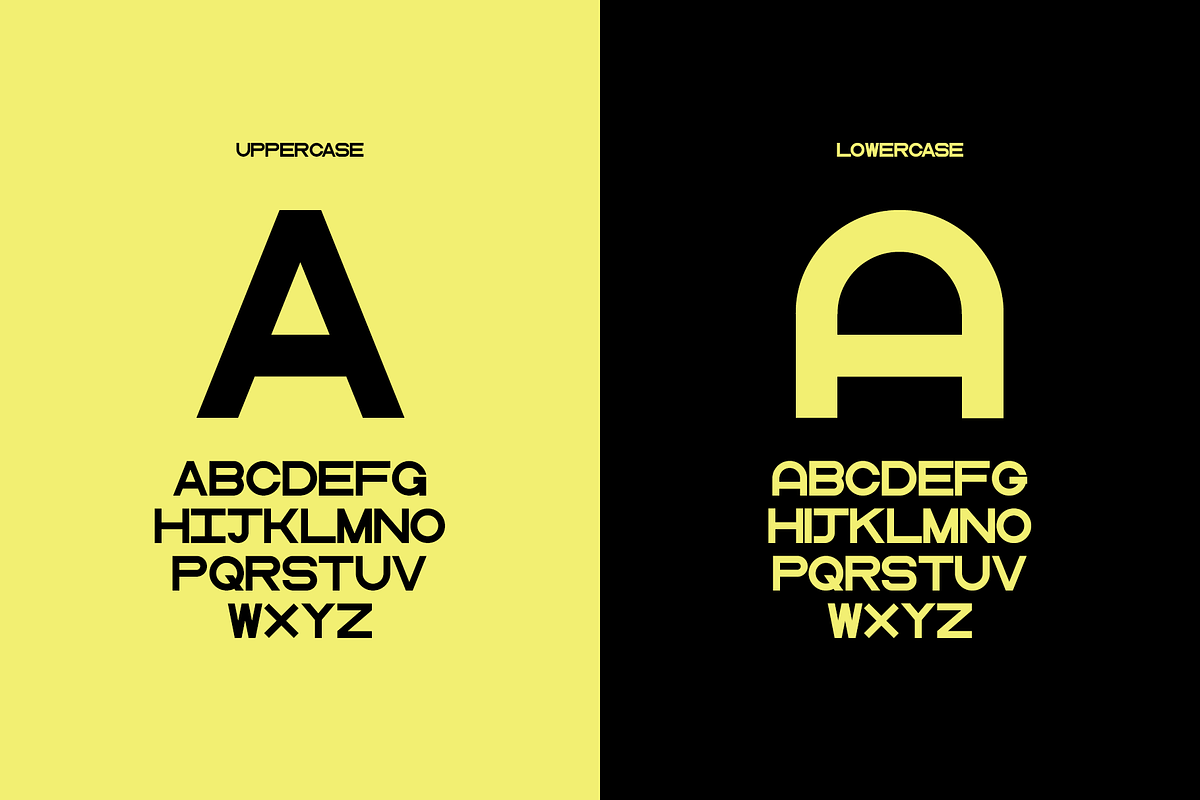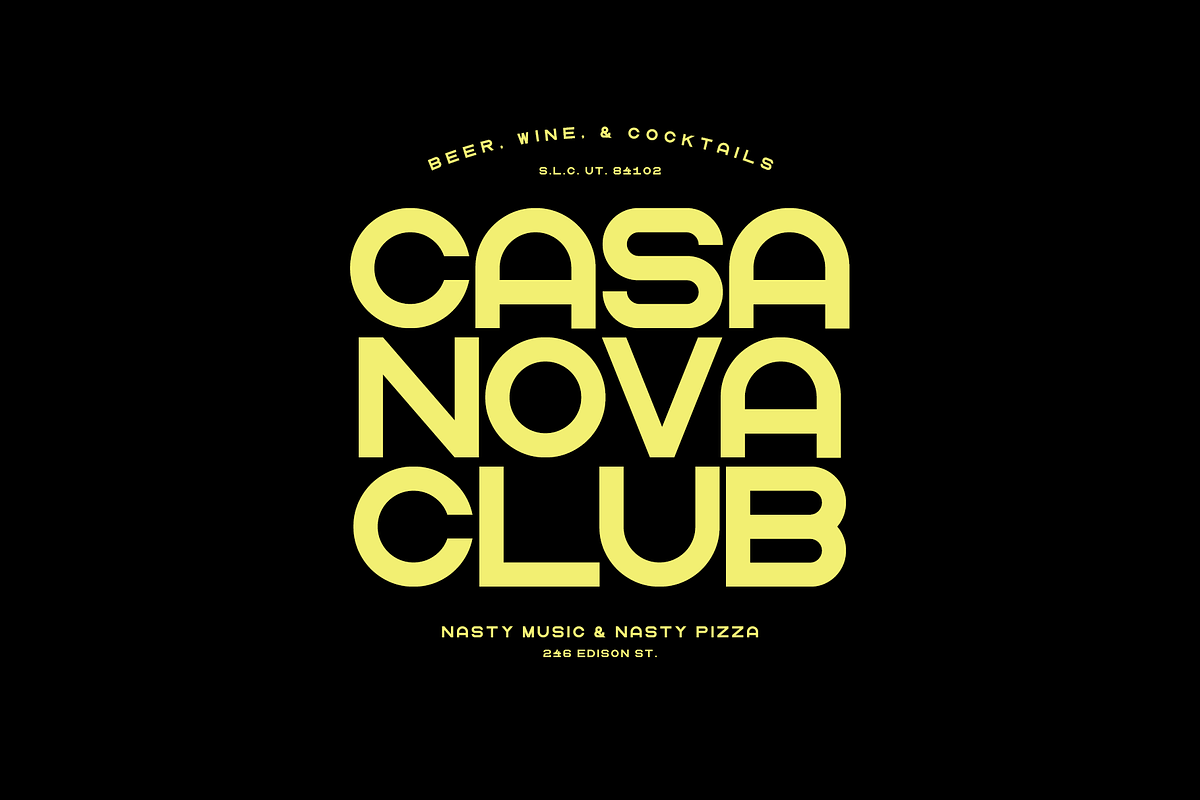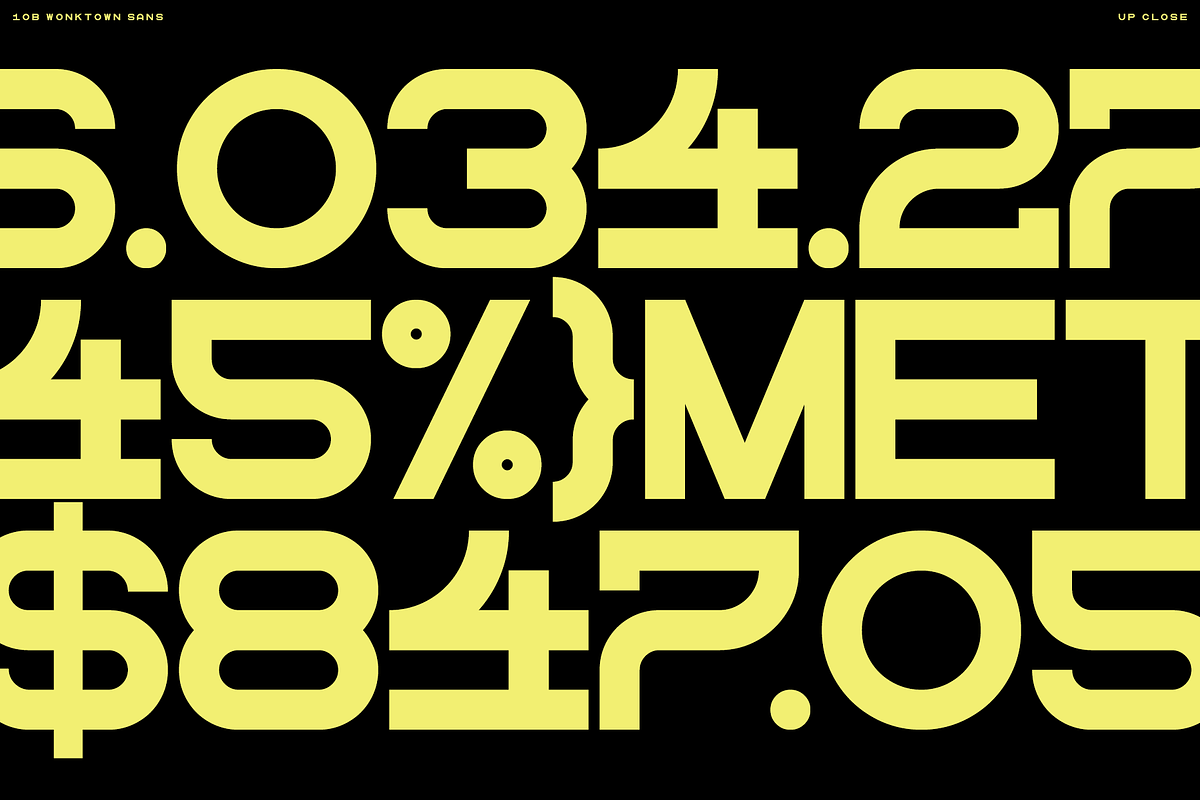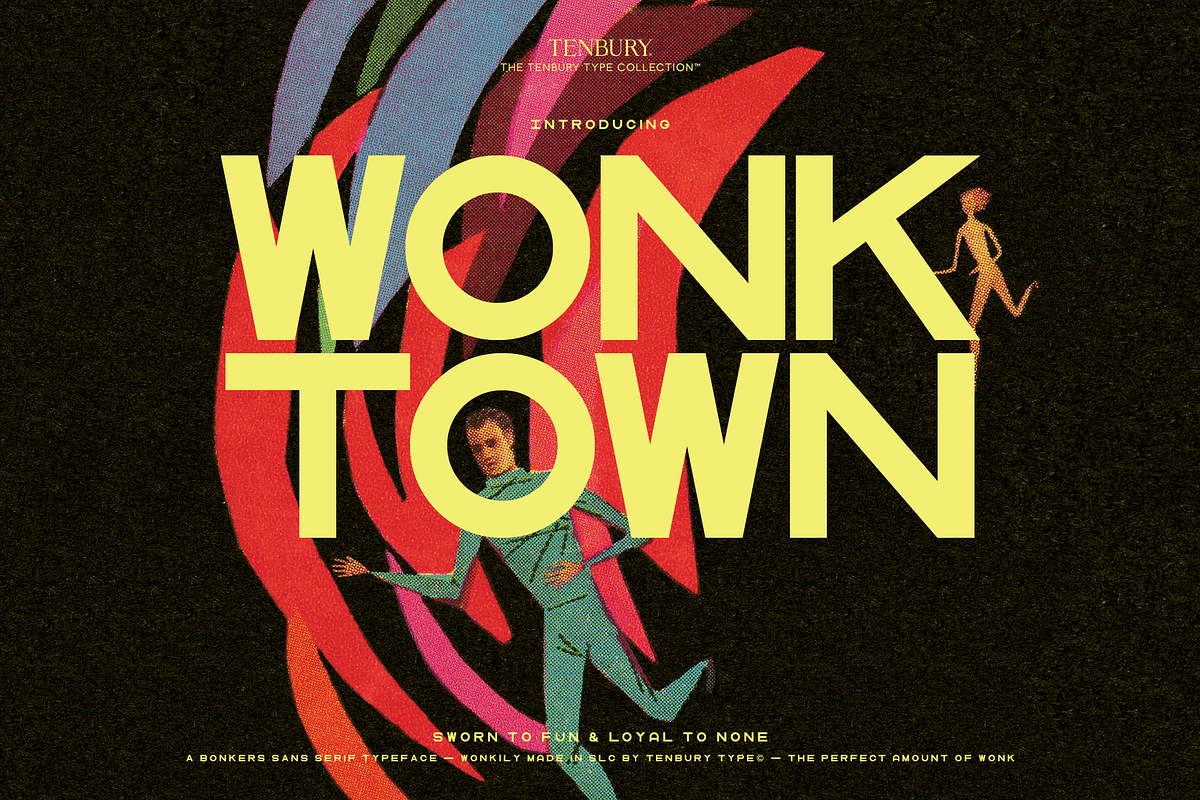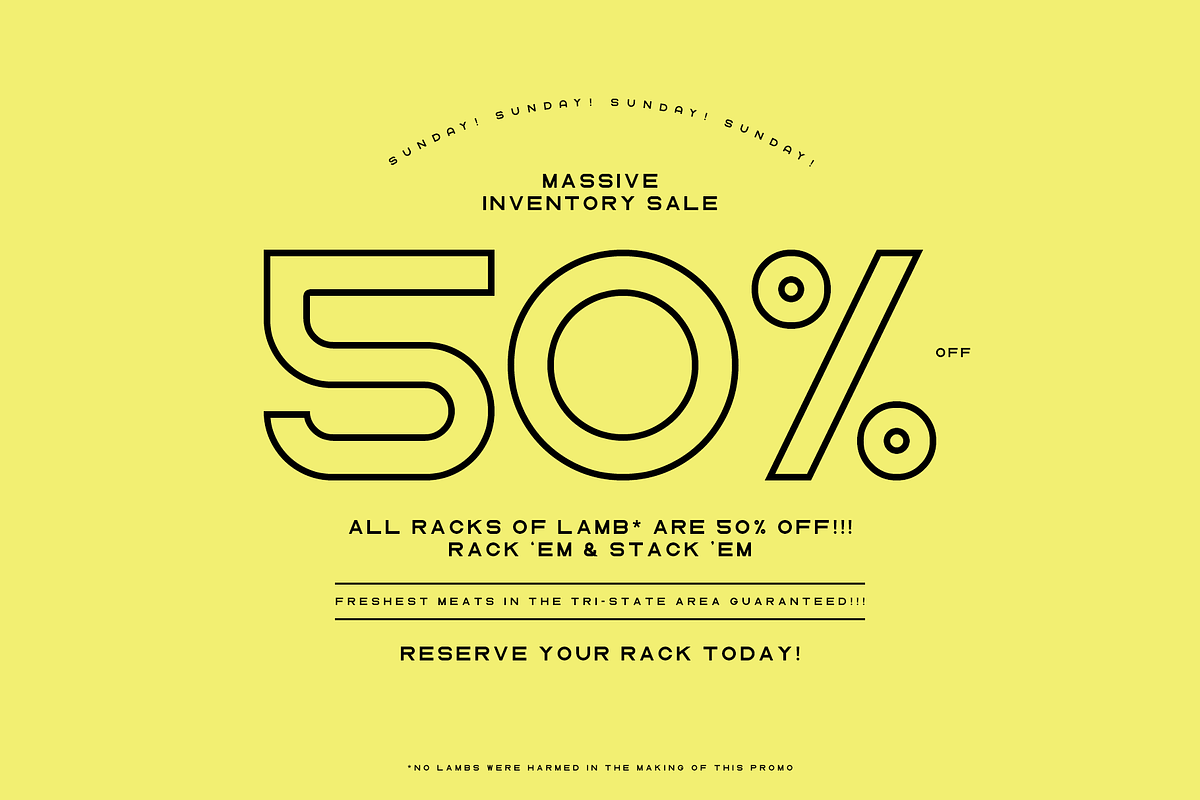
10B Wonktown: Funky Little Sans
Introducing 10B Wonktown Sans!!!
A display typeface created for wonky, funky, & fun headlines. The perfect amount of wonk for all your wonking needs. Wonkily made in Salt Lake City, Utah by Tenbury Type©